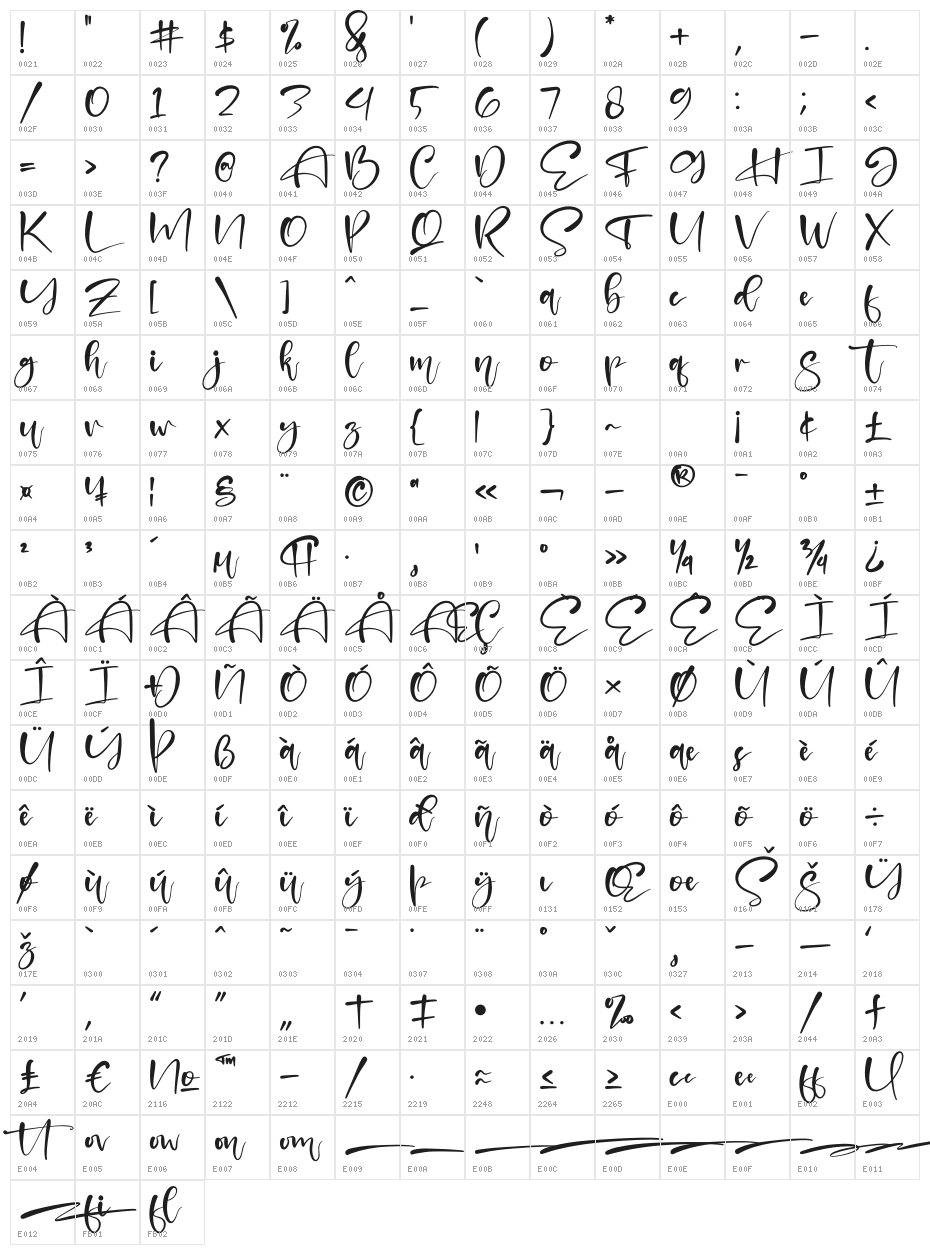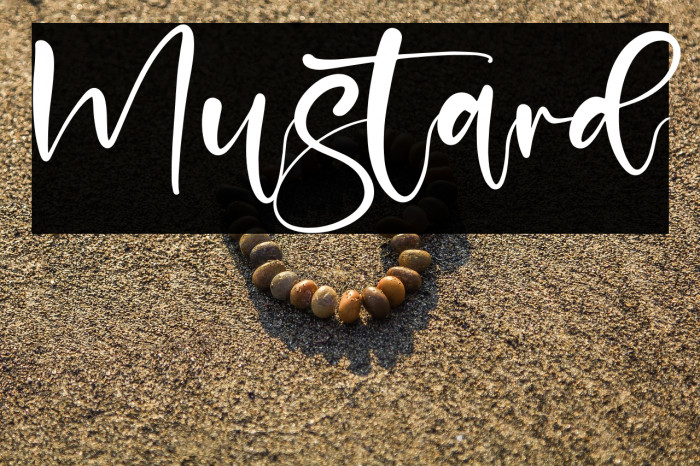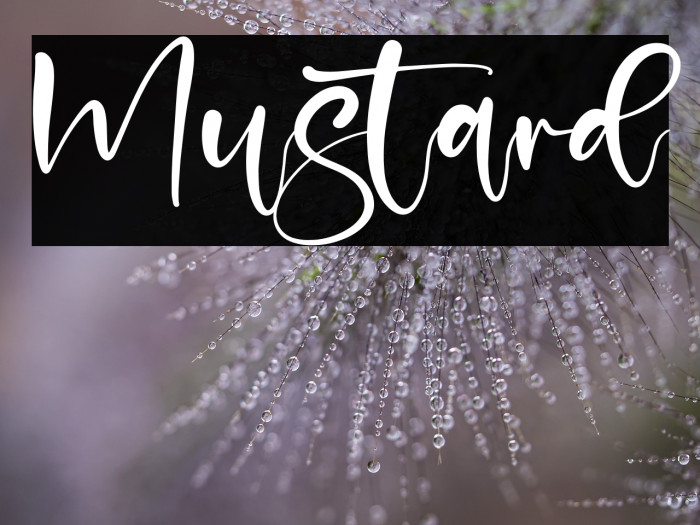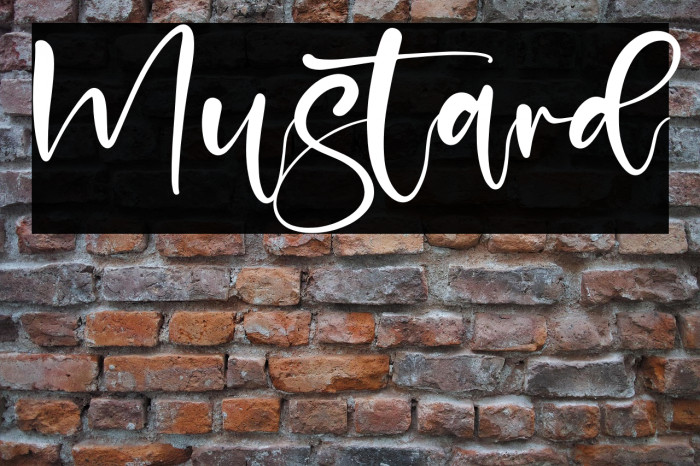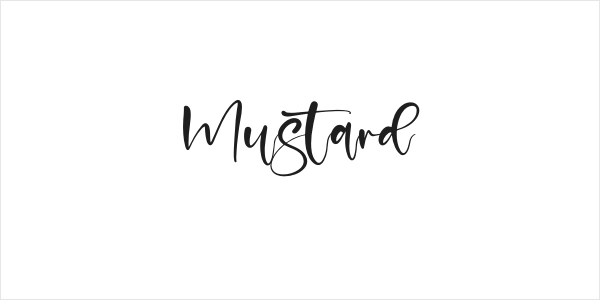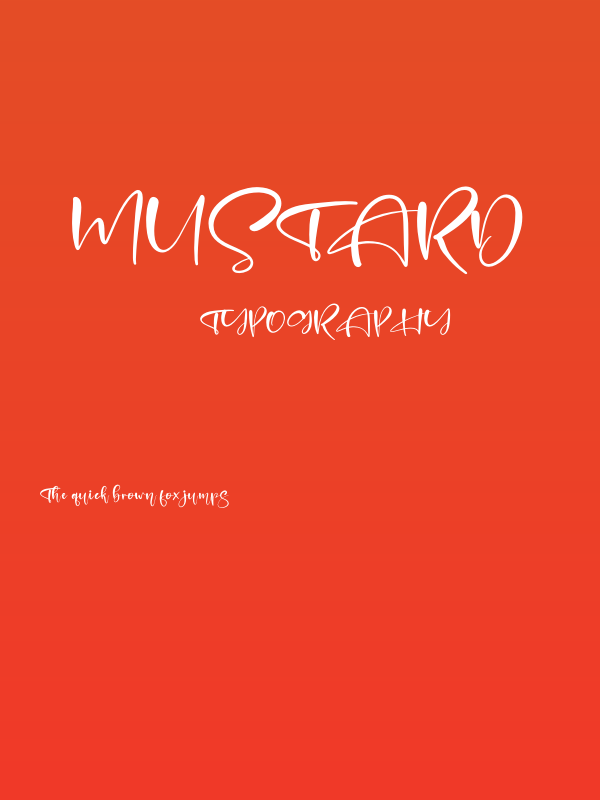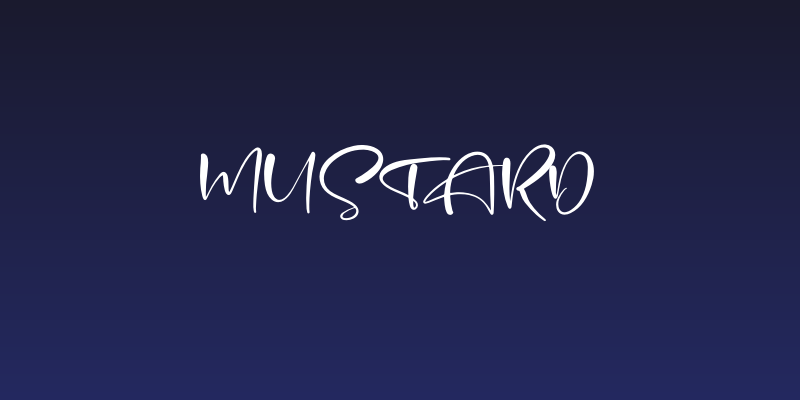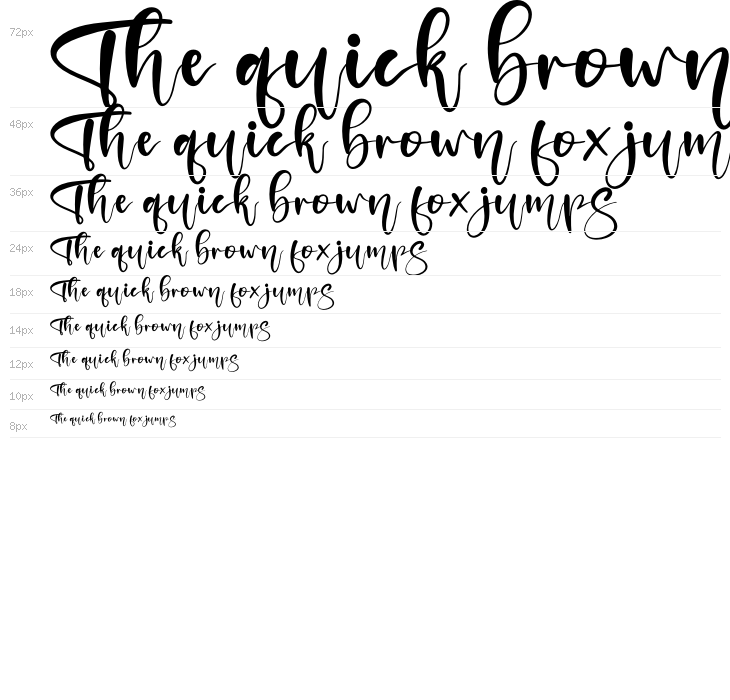
Mustard Font
Mustard Description
This font features a lively and expressive script style, characterized by its fluid, cursive strokes and dynamic movement. The letters are interconnected with a natural flow, creating a sense of elegance and spontaneity. The uppercase letters are bold and prominent, while the lowercase letters maintain a consistent rhythm with varying stroke widths. The numerals and special characters complement the overall aesthetic, adding a playful yet sophisticated touch. This font is perfect for projects that require a personal, handwritten feel, such as invitations, greeting cards, and branding materials.